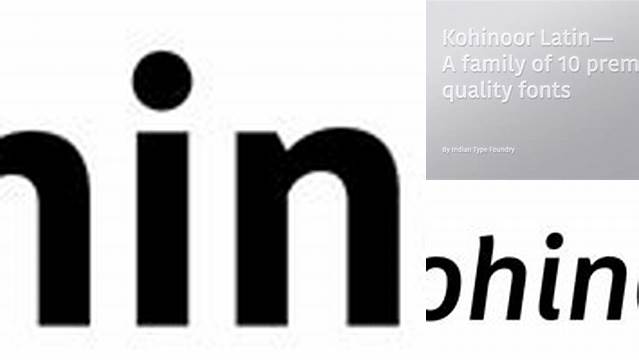
Hey guys! Ever stumbled upon the elegant Kohinoor font and wished you could get your hands on it? Well, you're in luck! This article is your go-to guide for a Kohinoor font family free download, covering everything from its history and uses to where you can snag it legally and safely. We'll dive deep into the different styles, how to install them, and even some creative ways to use Kohinoor in your projects. So, buckle up, because we're about to embark on a typography adventure!
1. Unveiling the Kohinoor Font Family: A Brief Introduction
Let's kick things off by getting to know the star of the show – the Kohinoor font family. Kohinoor is a beautiful and versatile typeface, often celebrated for its clean lines, readability, and sophisticated aesthetic. It's a sans-serif font, meaning it lacks the small decorative strokes (serifs) found at the ends of some letterforms. This gives Kohinoor a modern and approachable feel, making it suitable for a wide range of applications. The Kohinoor font family is actually quite extensive, typically including various weights and styles, such as regular, bold, italic, and sometimes even condensed or extended versions. This diversity allows designers and users to tailor the font to their specific needs, ensuring the perfect look for any project. The font's design is typically characterized by its balanced proportions, clear letterforms, and excellent legibility, making it a favorite among both designers and readers. You will find that Kohinoor is a great choice for body text, headings, and even branding materials. The visual impact of Kohinoor is substantial and can significantly enhance the aesthetic appeal of any design. The fonts are crafted in a way to make sure it works well on print and also on screen. This makes the font a reliable choice. The versatility and also the aesthetic characteristics make it a desirable option for designers. It is a great choice for anybody who wishes to convey the message of elegance and modernity.
2. Why Choose Kohinoor? Exploring its Design and Aesthetics
So, why is the Kohinoor font family such a popular choice? Well, it all comes down to its design and aesthetic qualities. The font's clean lines and modern feel make it incredibly versatile. It's equally at home in a sleek website design as it is in a classic print layout. Its readability is another key factor. In today's digital landscape, where users are bombarded with information, legibility is paramount. Kohinoor ensures that your message is clear and easily digestible. The fonts of the Kohinoor family are usually designed with a high degree of craftsmanship, with each character carefully considered to maintain visual harmony and balance. This attention to detail results in a typeface that is not only beautiful but also highly functional. When choosing a font, consider the message you want to convey. Kohinoor often conveys a sense of sophistication and professionalism, making it an excellent choice for businesses and brands that want to project a polished image. The font is ideal for building a visual identity. A cohesive design is achievable by using it in your marketing materials. The design makes it easy to make sure that your branding is consistent. It will bring a sense of unity across all communications. With the right font choice, you can change the perception of your brand. Kohinoor, with its elegance, will leave a lasting impact.
2.1. Kohinoor's Versatility: From Websites to Print
One of the things that makes the Kohinoor font family stand out is its incredible versatility. You can use it in everything from websites to printed materials. Whether you're designing a sleek, modern website or creating brochures, Kohinoor adapts seamlessly. Its clean lines and excellent readability ensure that your content is both visually appealing and easy to consume. For websites, Kohinoor can be used for headings, body text, and even navigation elements. Its modern aesthetic complements contemporary web design trends, creating a user-friendly and visually engaging experience. In print, Kohinoor shines in a variety of applications. It's perfect for creating professional documents, reports, and presentations. You can also use it for marketing materials like posters, flyers, and business cards. The font's legibility is important here because it makes sure that the printed words are clear. It will bring a polished and professional look to your project. The font is also great for branding. Its consistent use can establish a visual identity. This will increase brand recognition and appeal. The versatility of Kohinoor makes it a great asset for anyone in need of a reliable and aesthetic font choice. You can see that it will create a seamless visual experience for both online and offline projects.
2.2. Kohinoor vs. Other Sans-Serif Fonts: A Comparison
When choosing a font, it's helpful to compare different options to see what best fits your needs. Compared to other popular sans-serif fonts, the Kohinoor font family has its own unique characteristics. While fonts like Arial and Helvetica are known for their neutrality and widespread use, Kohinoor often offers a slightly more refined and modern aesthetic. It might have more subtle design details that make it stand out. Compared to fonts like Open Sans or Roboto, Kohinoor tends to feel a little more elegant. Its clean lines and carefully crafted letterforms give it a touch of sophistication that's great for projects that need a professional look. Also, the weight and styles available in the Kohinoor family provide greater versatility. You can choose the right version to match your needs. The best choice depends on your project's specific requirements. When considering Kohinoor, think about the overall tone and message you want to communicate. Its modern and readable design makes it a great choice if you want to convey professionalism and elegance.